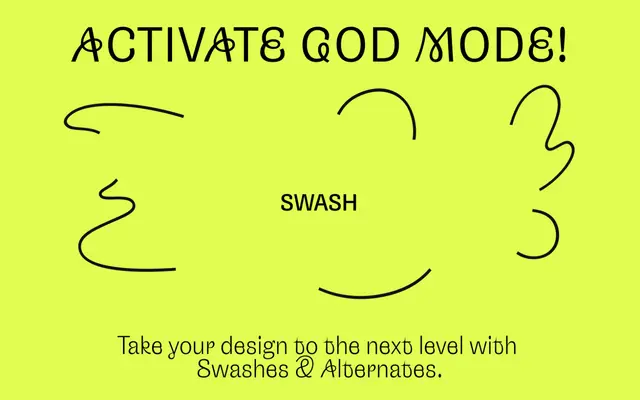
Nouveau Grotesque
An early grotesque redrawn with Art Nouveau calligraphic details, swashes and whiplash ornaments, released in five weights with true italics.
Originally a corporate commission from 2017, Nouveau Grotesque has been fully redrawn with improved terminals and counters for legibility at text sizes. Five weights from Light to Bold each carry true italics, and a sister family, Nouveau Grande, adds a Black weight with higher contrast for display use. Thirty-five OpenType features include swashes, stylistic sets for individual letterforms, circled and boxed figures, and an extensive ligature set that introduces calligraphic rhythm into running text.
Built on an early grotesque structure with Art Nouveau calligraphic details grafted onto terminals and counters, placing it firmly in the grotesque sans-serif tradition with expressive decorative overlays.